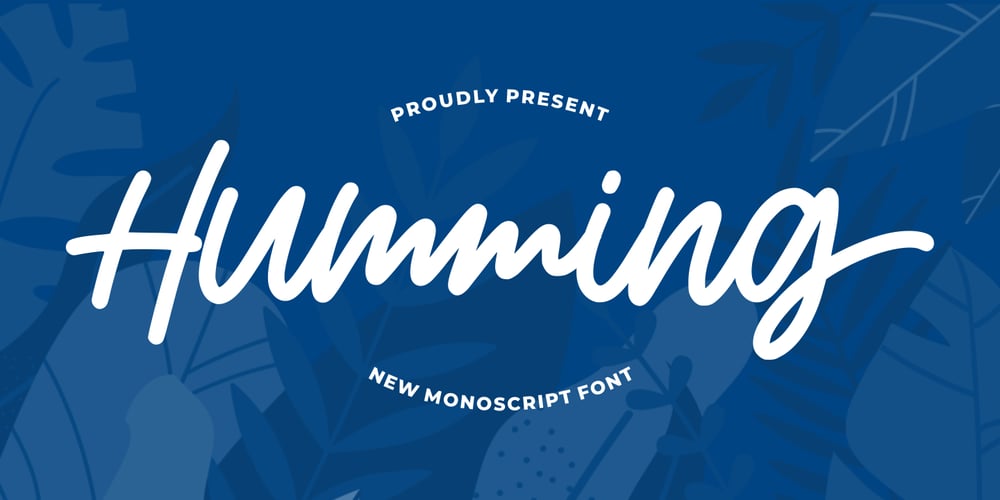
Humming Font Family was designed by Risman Ginarwan and published by Garisman Studio. Humming contains 2 styles and family package options. Humming is a naturally modern script, delivering a stylish look and is guaranteed to add an eye-catching appeal to your logo designs, brand imagery, quotes, product packaging, merchandise, social media posts, and more. – Simple installation – Work for Windows or MAC – PUA Encoded Open – Versatile for poster, logotype, labels, book cover – Supported for: Adobe Illustrator, Photoshop, Shillouette, Corel Draw, Indesign, and Procreate (updated)